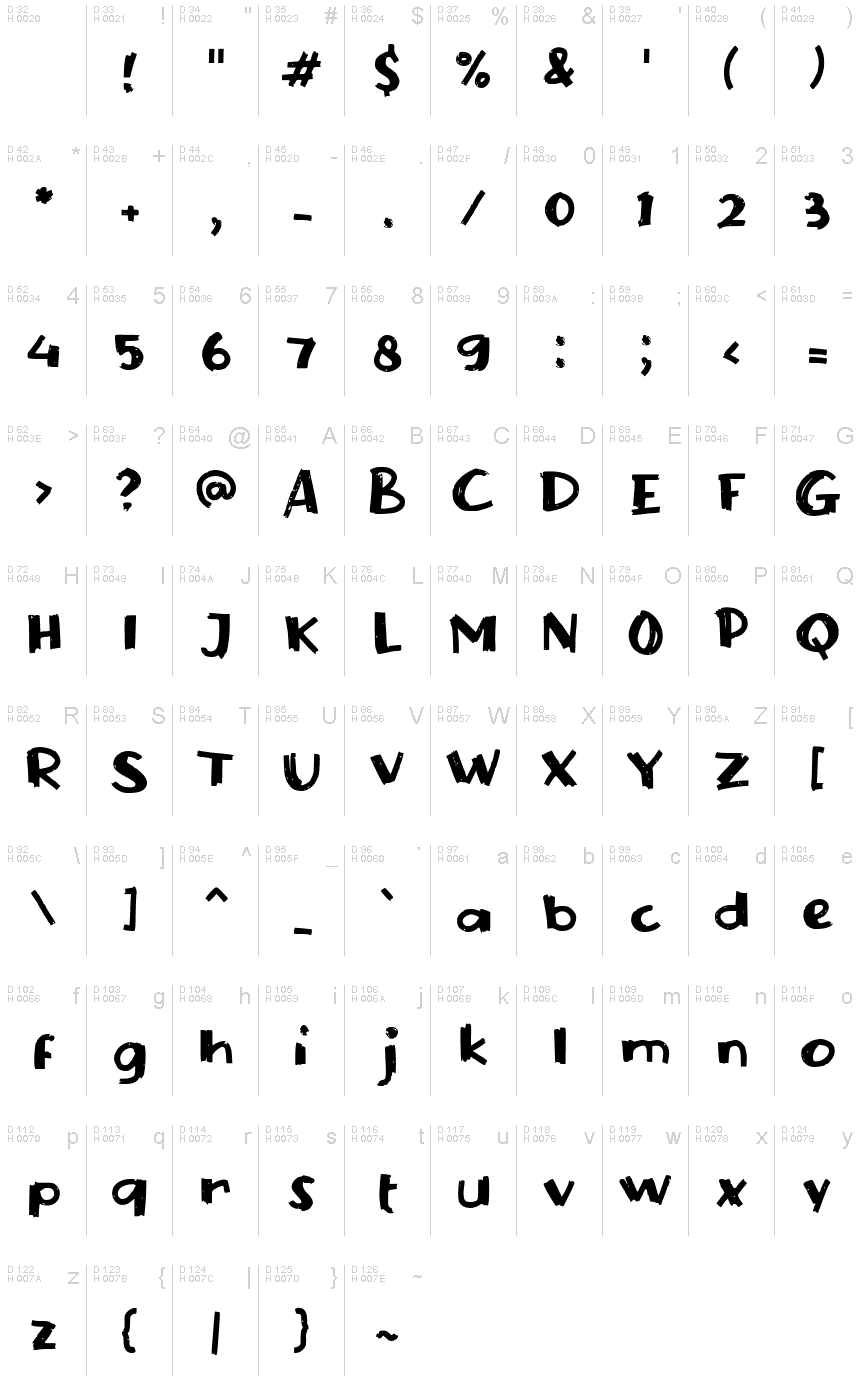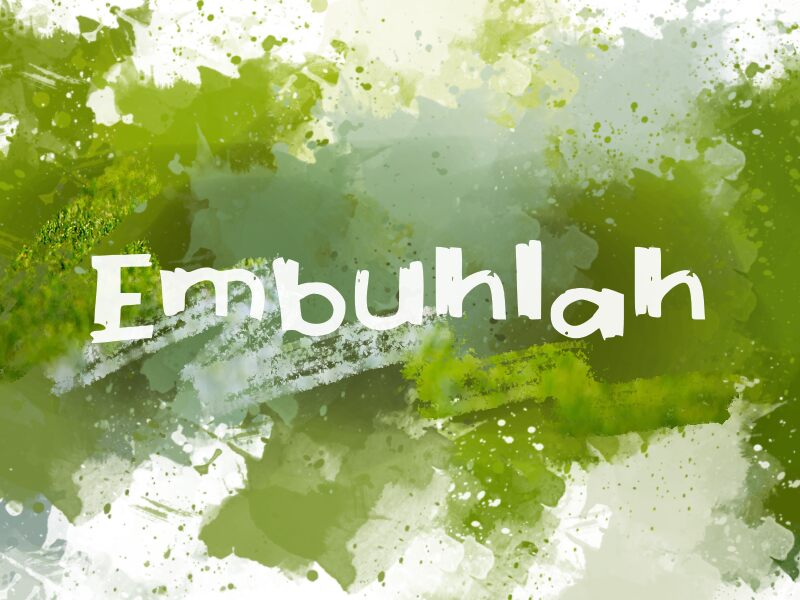
Embuhlah
Embuhlah, the bold and expanded brush font created by wep, is perfect for projects that require a strong and confident visual impact. Its thick strokes and unique texture make it an excellent choice for designs that aim to stand out, such as posters, flyers, logos or branding materials. The Embuhlah typeface can also bring a playful touch to digital designs like social media graphics or website headers. With its eye-catching style and versatile design options, Embuhlah is sure to elevate any project to the next level.